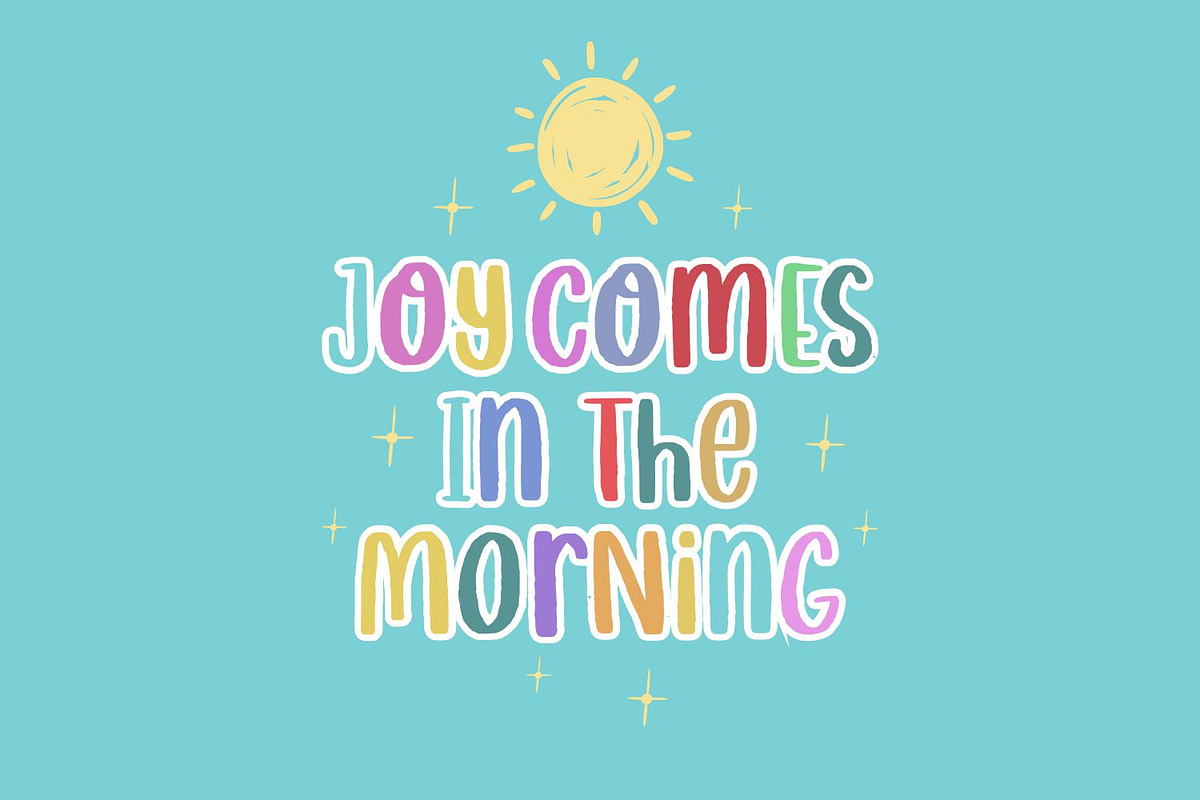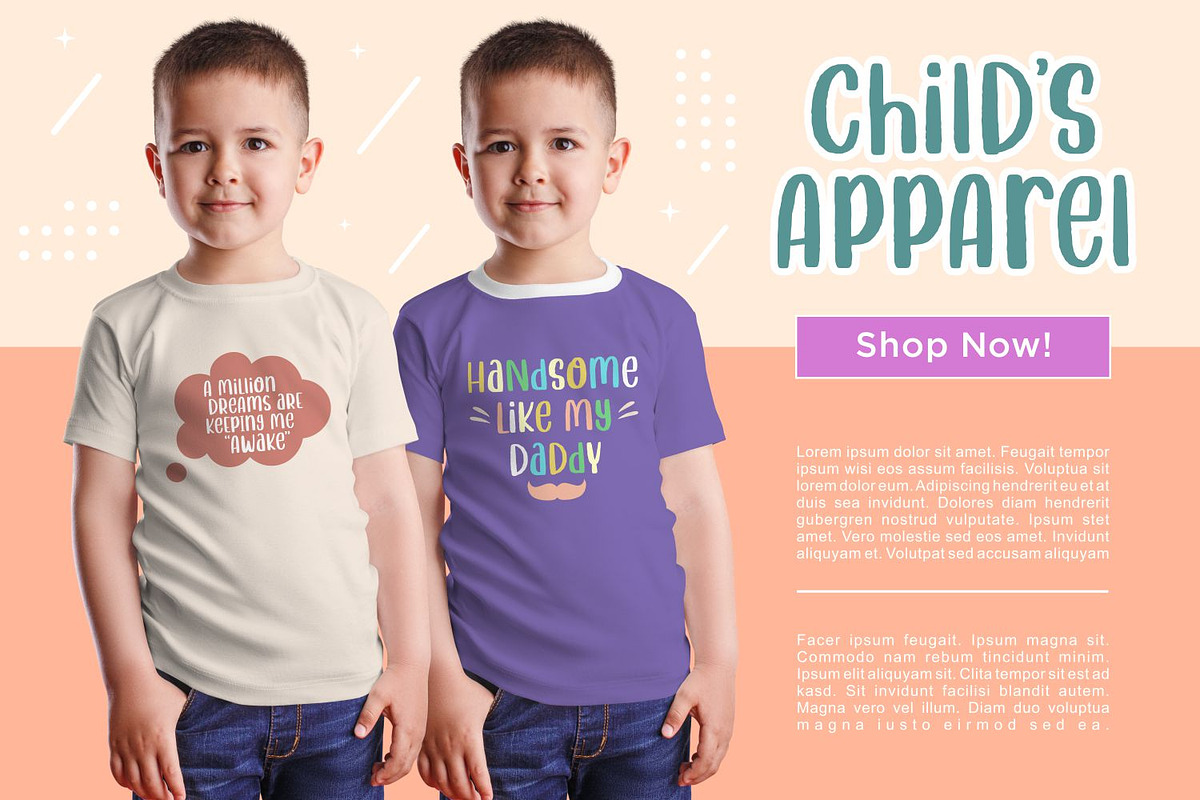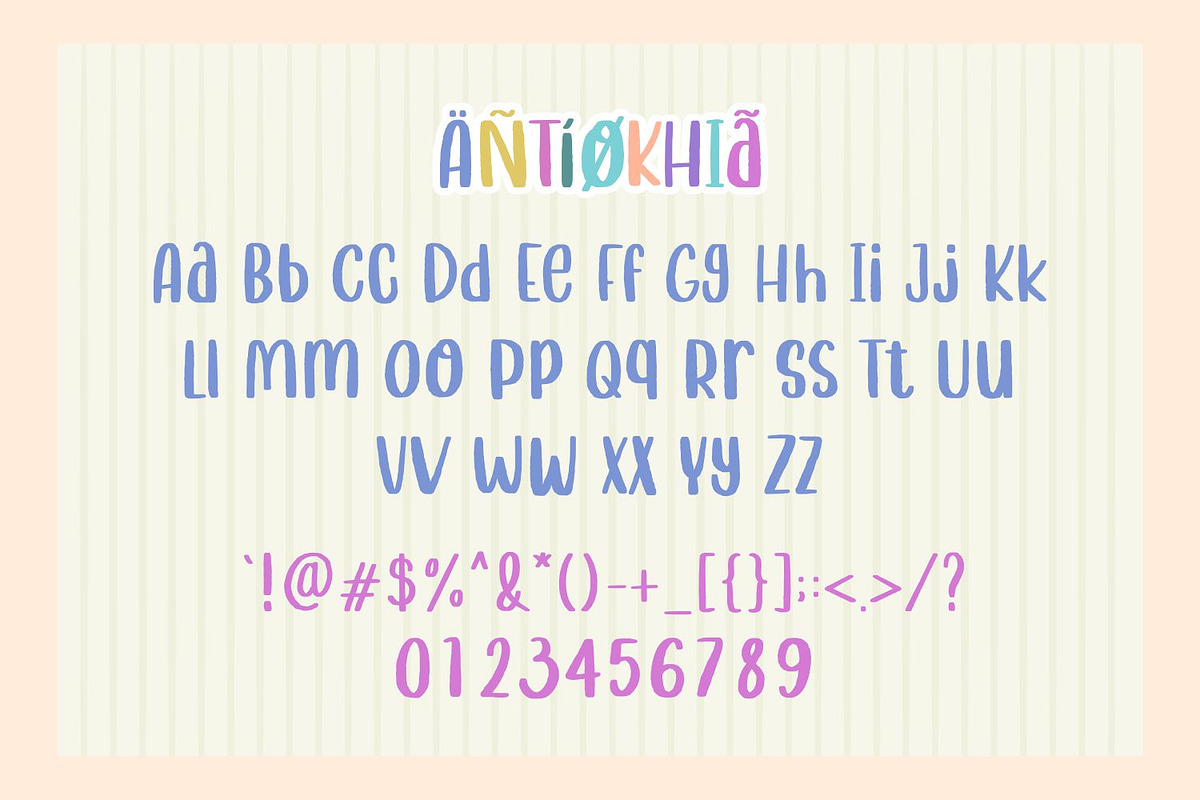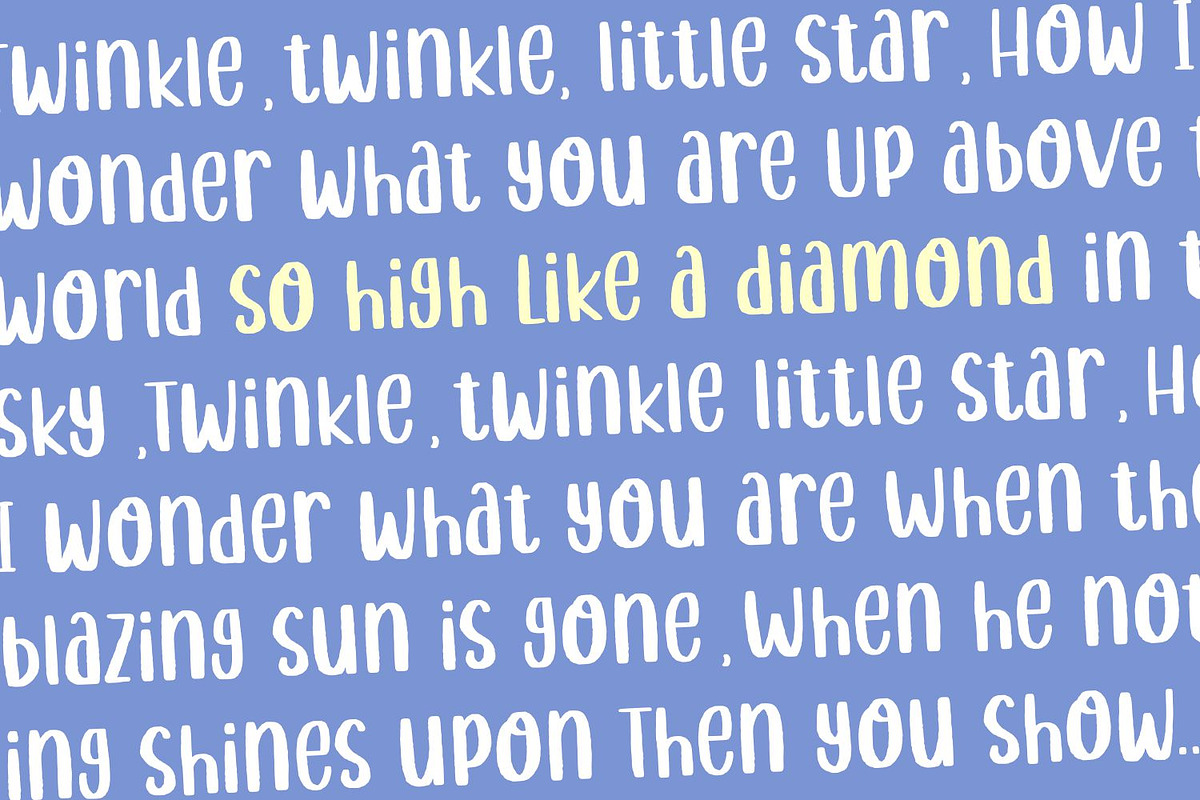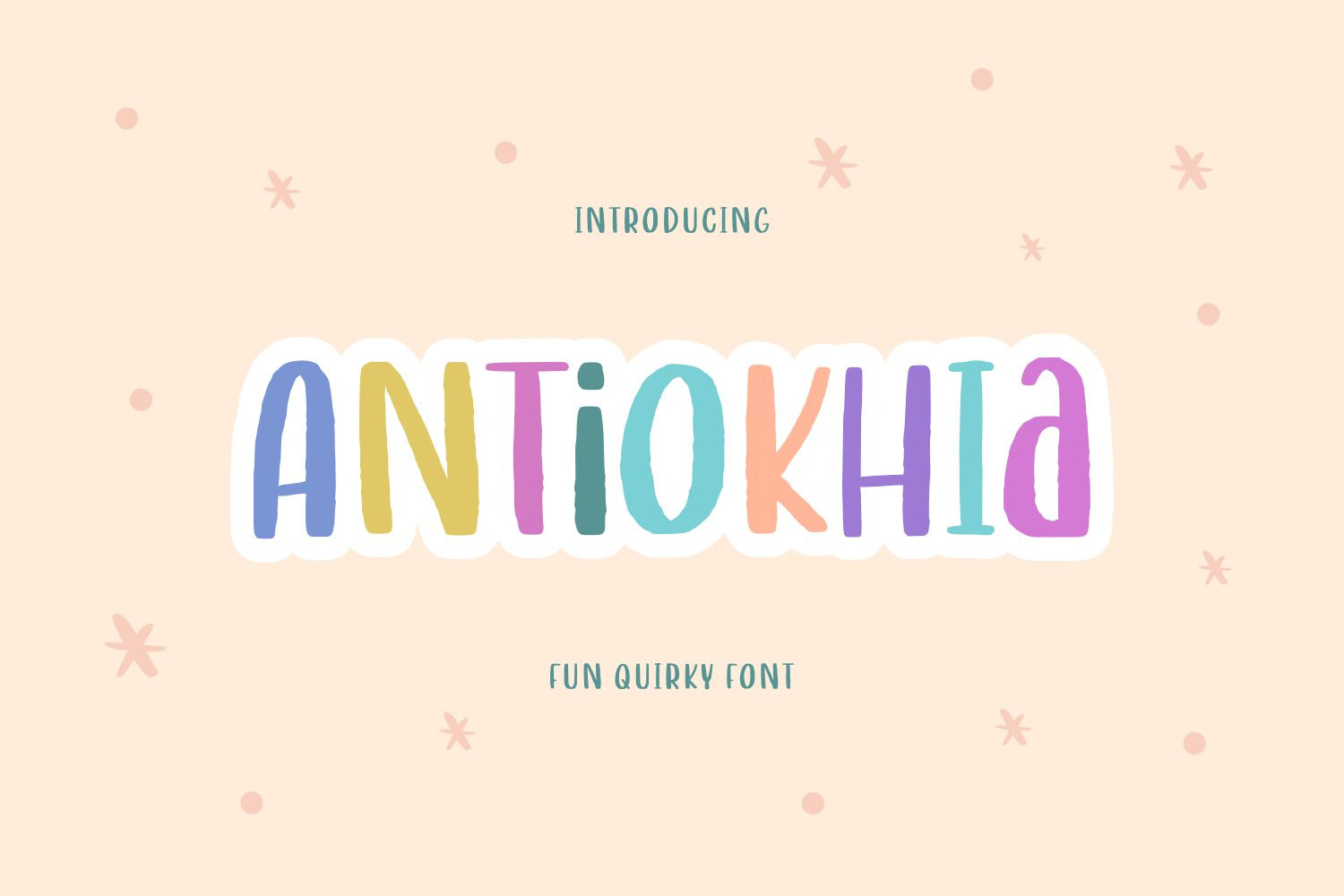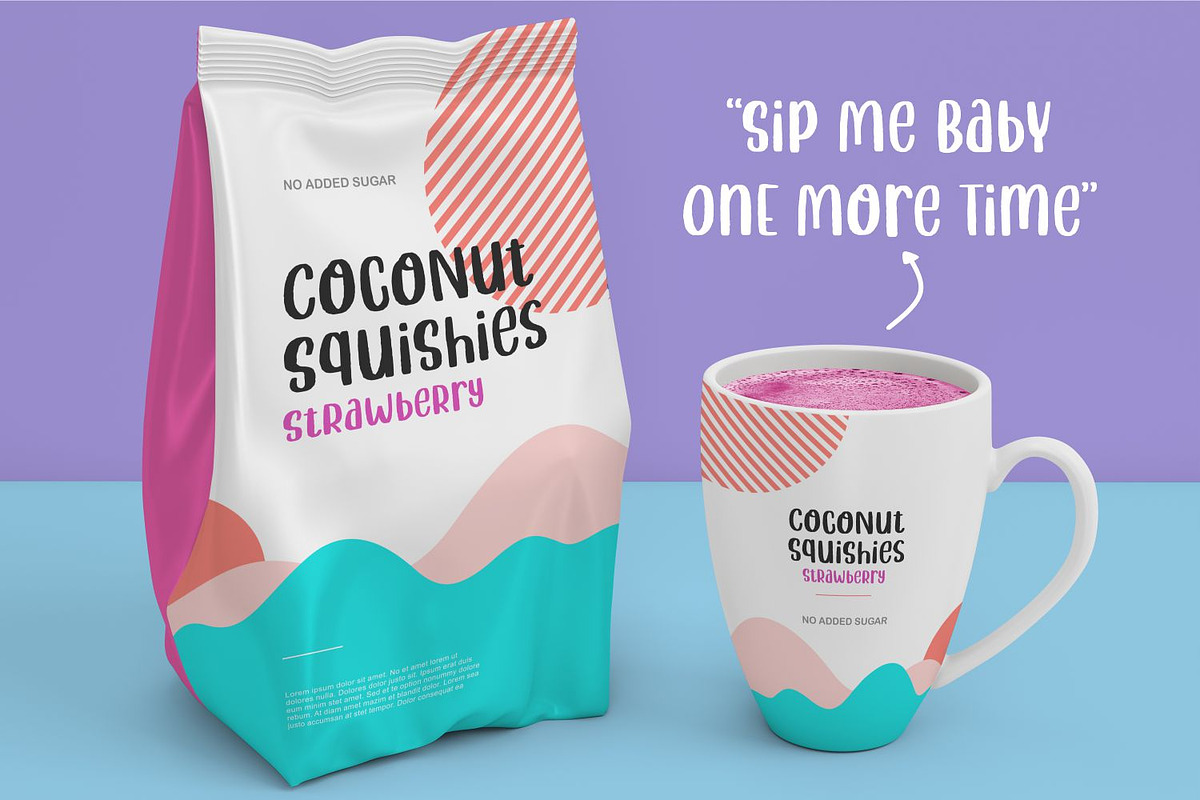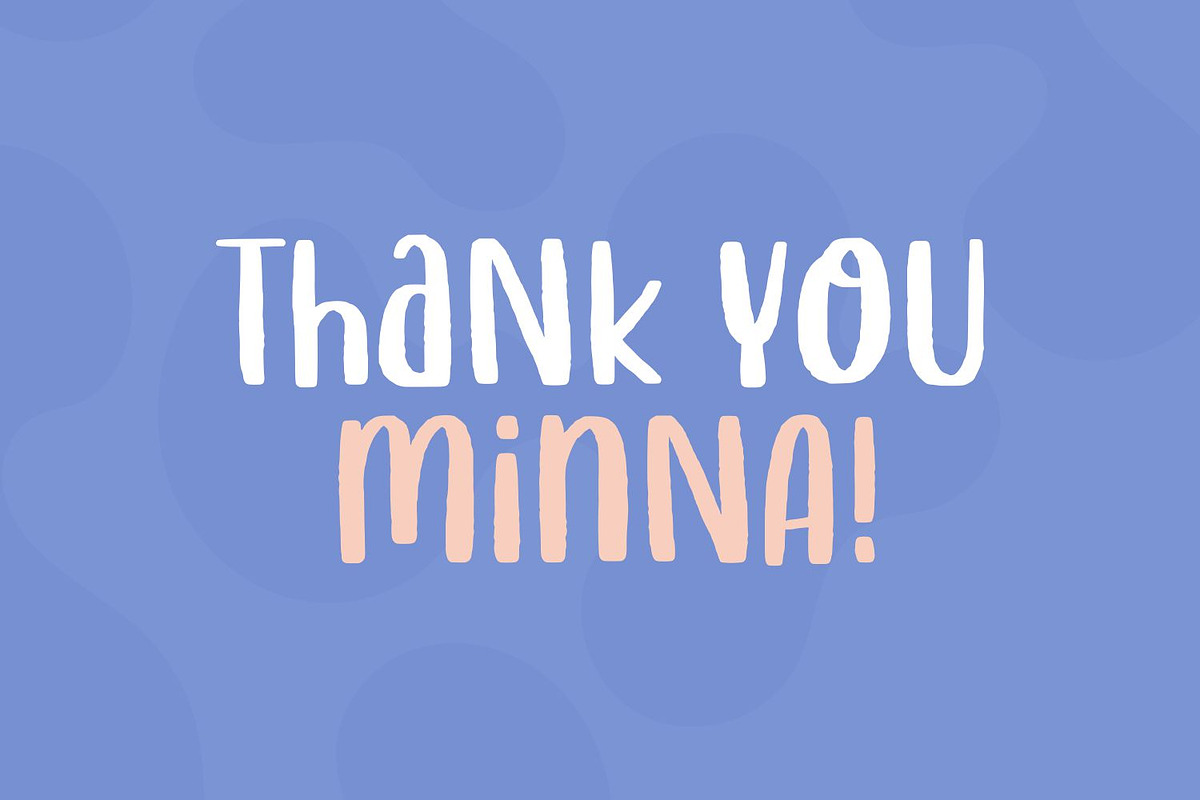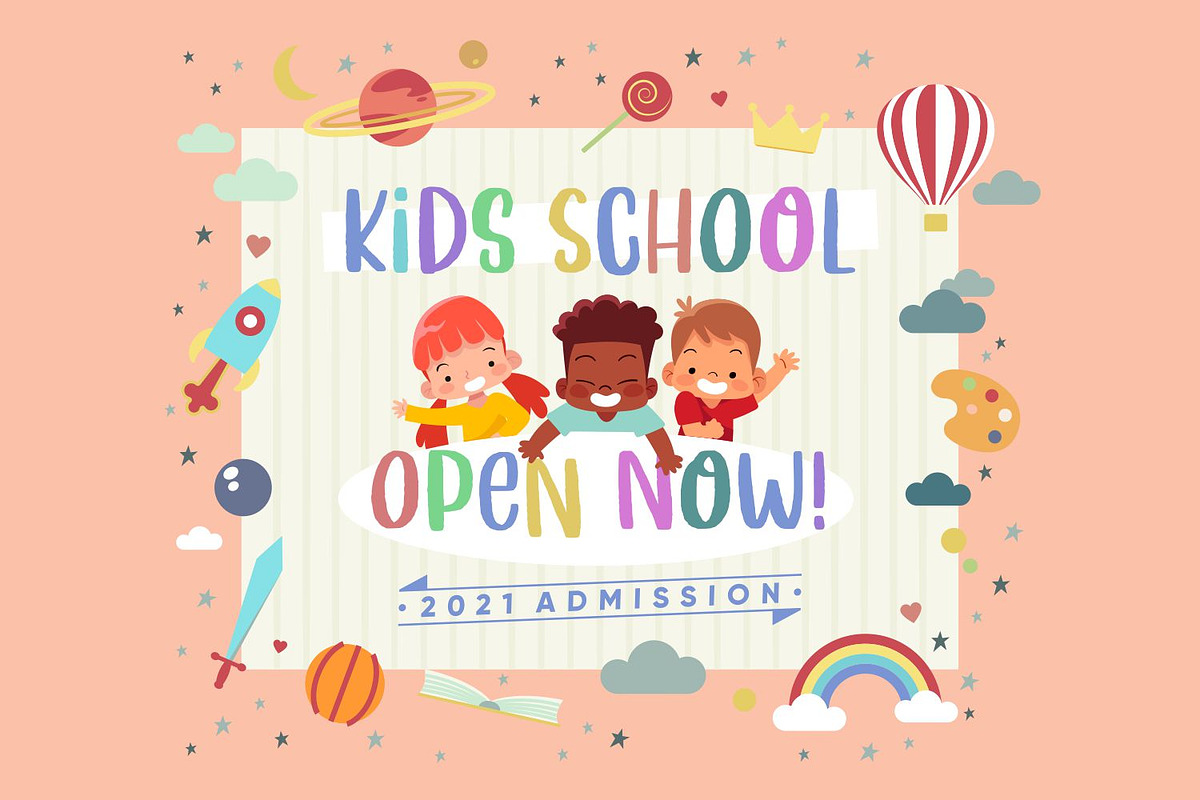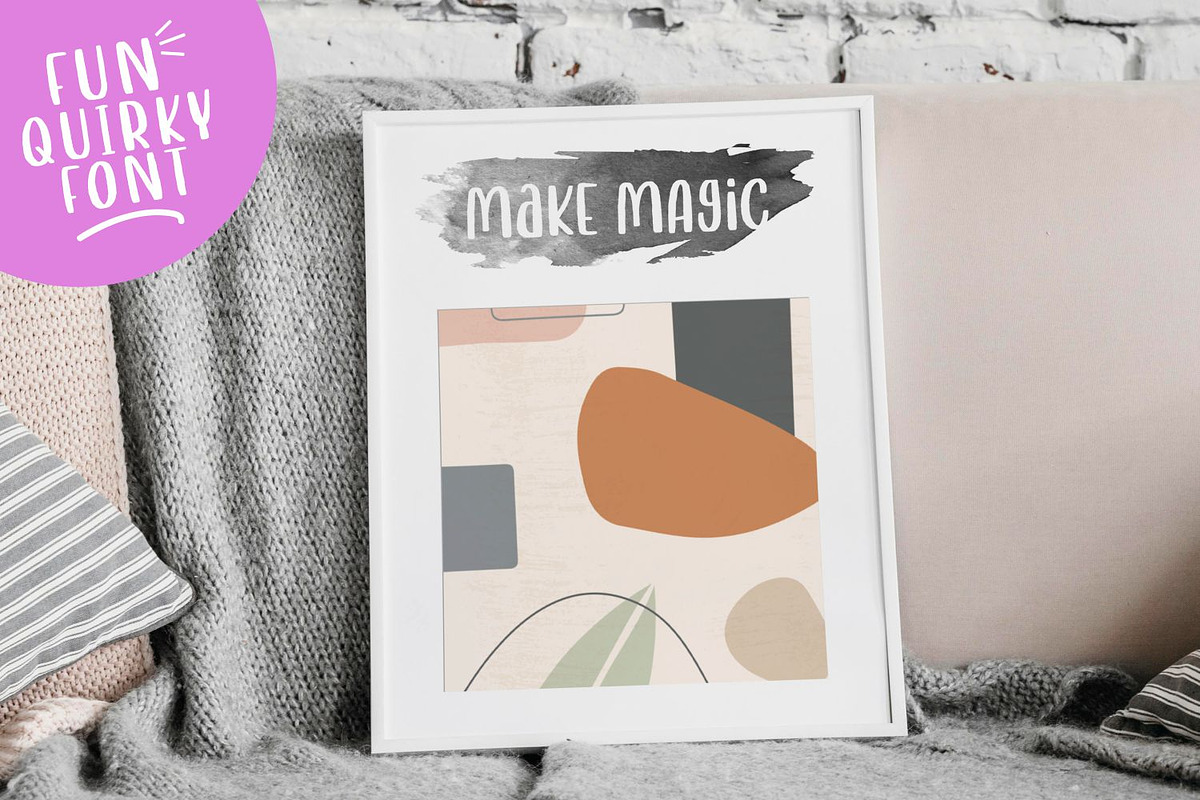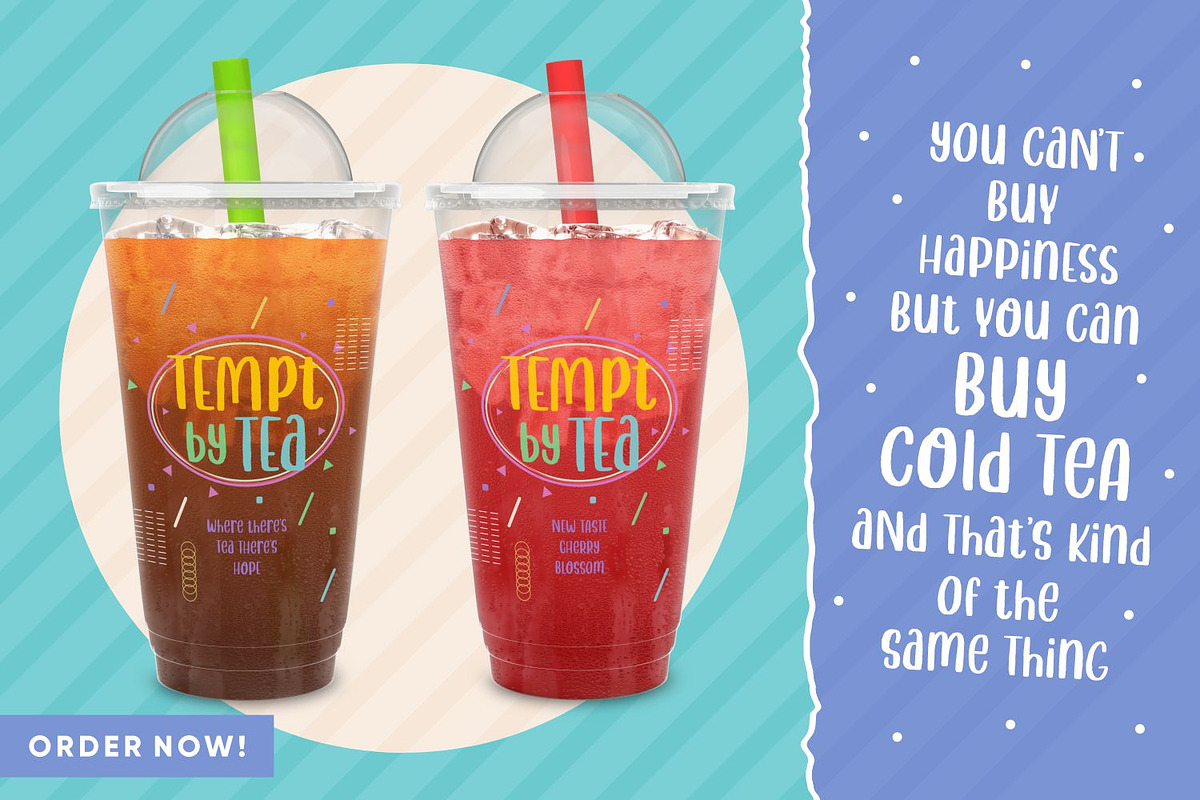
Antiokhia Font
Proudly Present, Antiokhia
Antiokhia is a Fun Quirky Font.
Antiokhia is perfect for product packaging, branding project, megazine, social media, wedding, or just used to express words above the background.